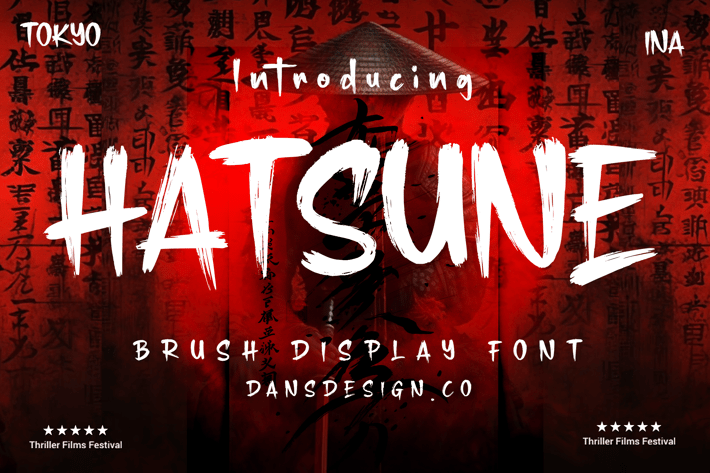
Hatsune Brush Display Font
Hatsune Brush Display Font a distinct, highly detailed.
It would make a great choice for exquisite retro-urban designs, business branding, logos, Apparel designs, and more.